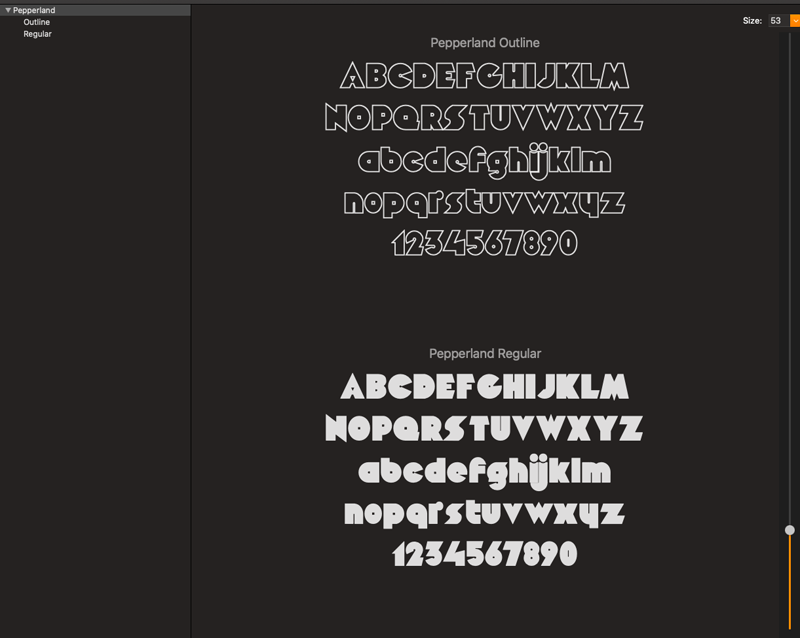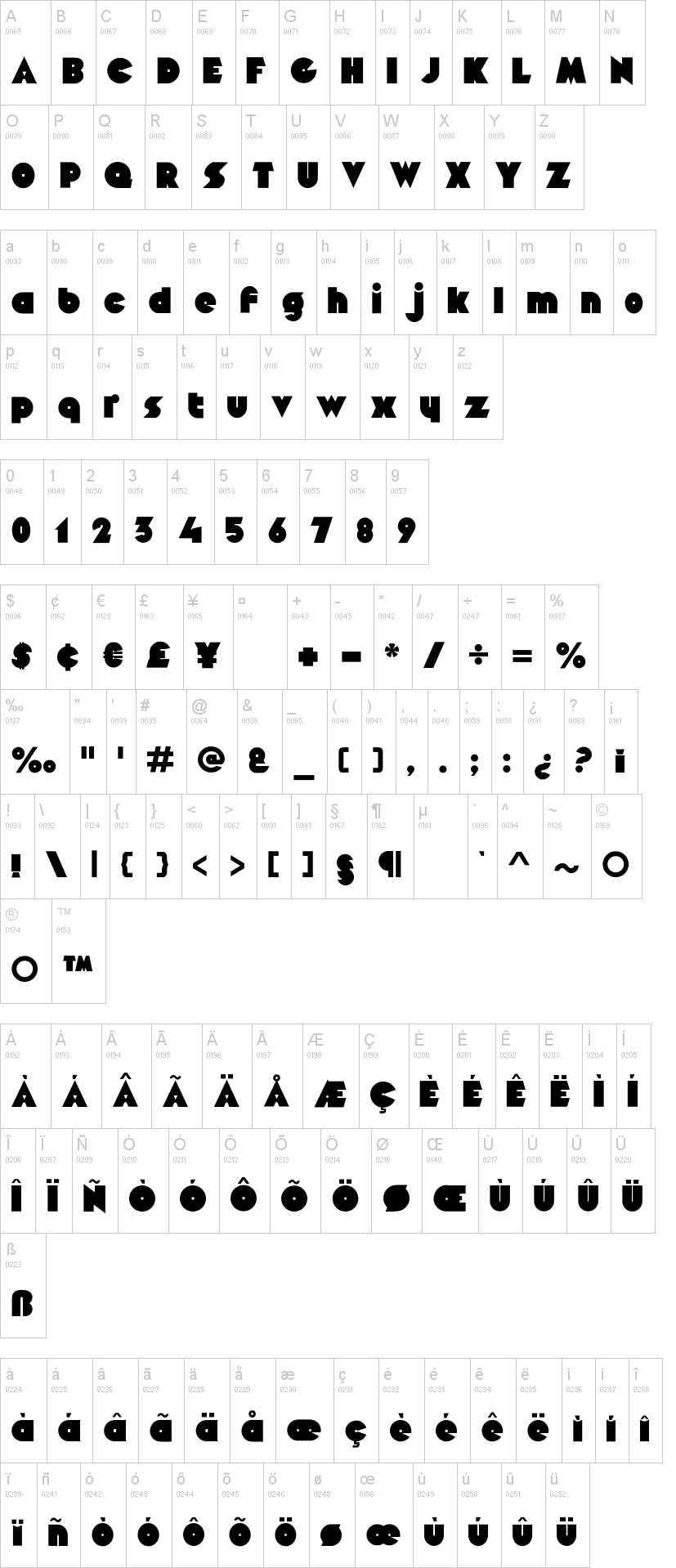
Pepperland-Outline.ttfNote of the authorPepperland Regular and Pepperland Outline were inspired by and created from reference to 1960's London Street Mural and Poster Art - notably around The Carnaby St Scene...